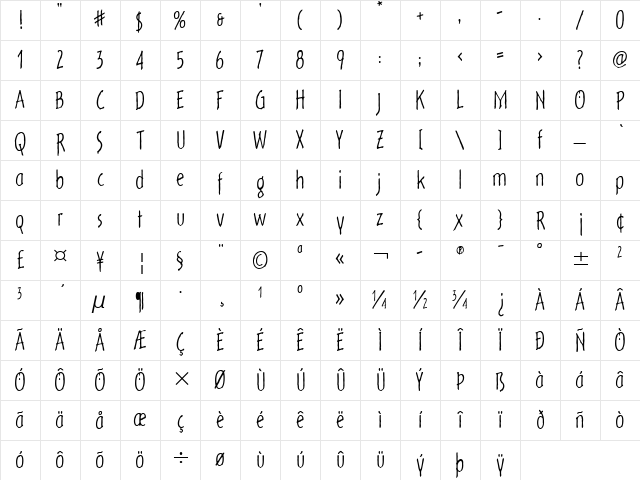
Complete Out of the Fridge ITC Light glyph index. Displaying only characters natively supported by Out of the Fridge ITC Light font.
Out of the Fridge ITC is a composed and adaptable typeface that performs quietly and consistently across a wide range of design contexts. Its slender proportions lend an understated elegance to any composition.
Who designed the Out of the Fridge ITC Light font?
This font was published by as an unpublished work by Galapagos Design Group, Inc. Check the technical specs section for copyright and designer details.